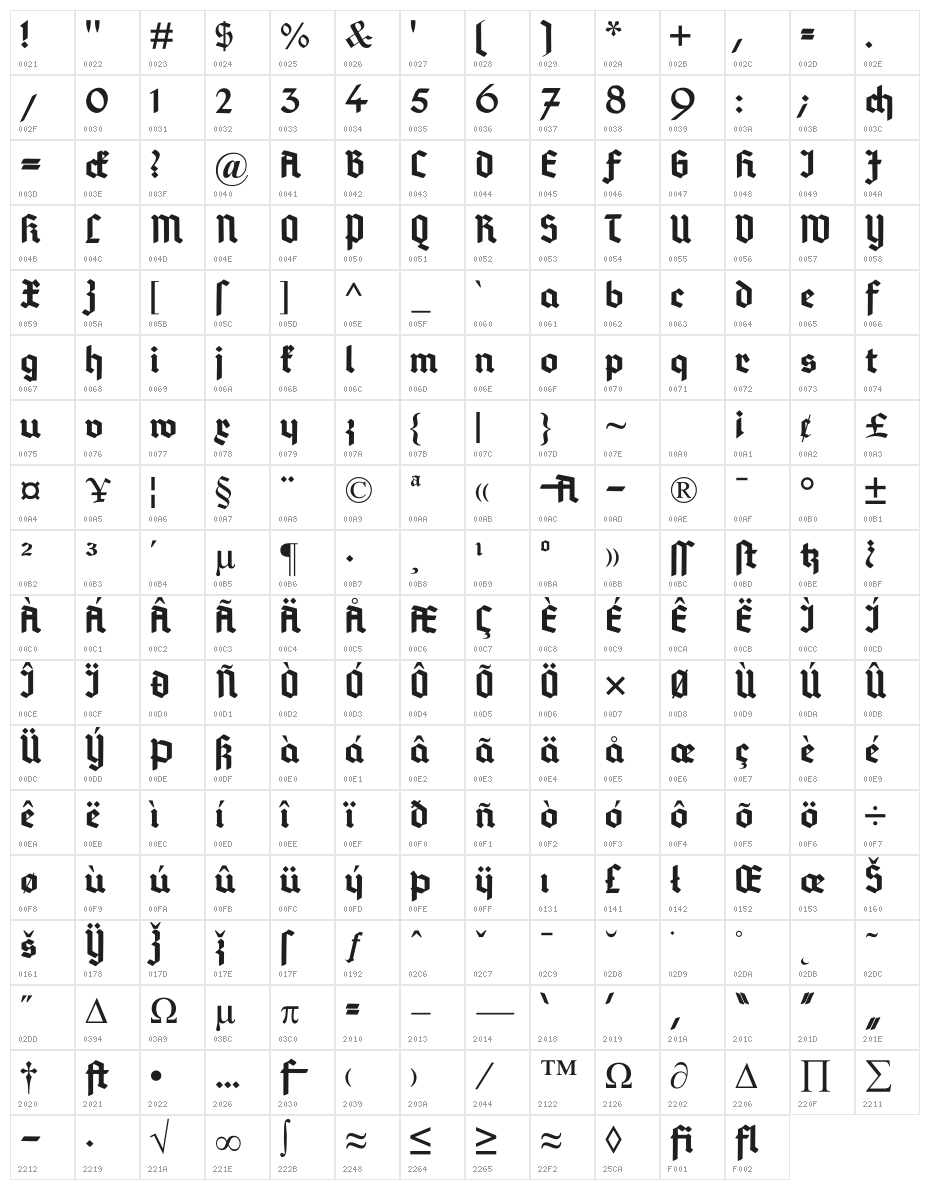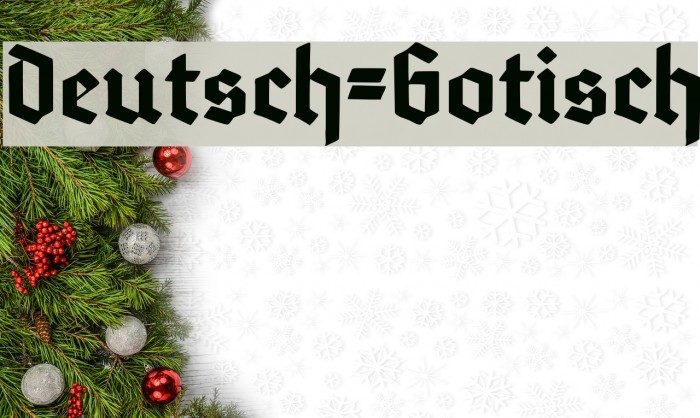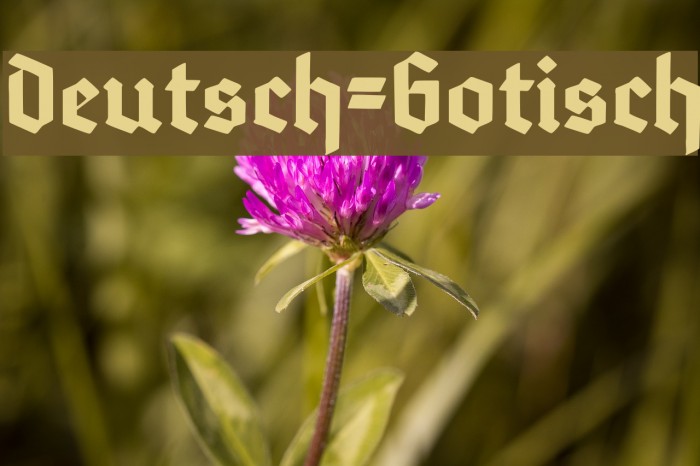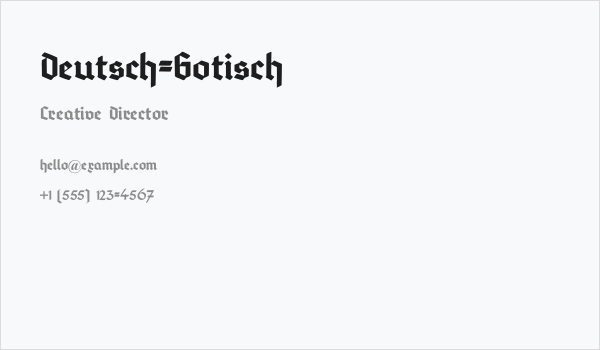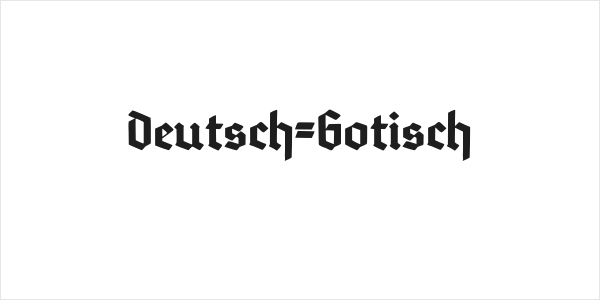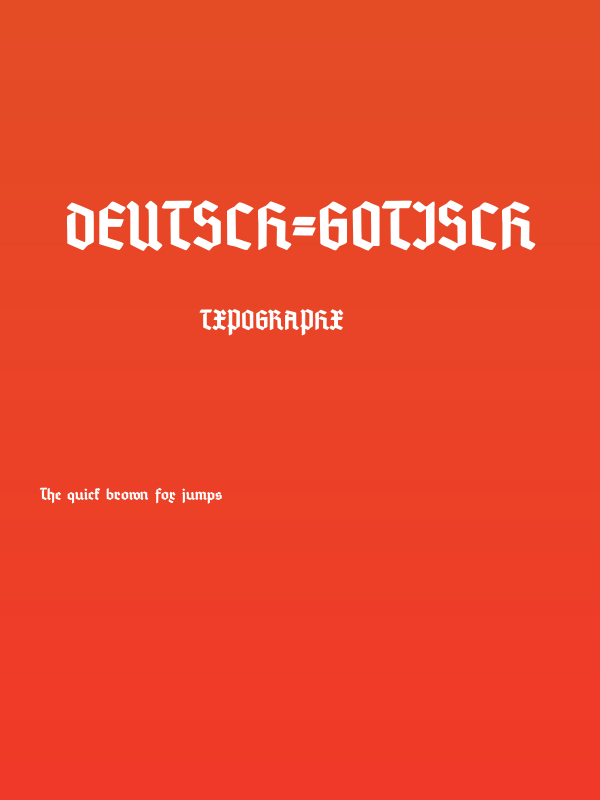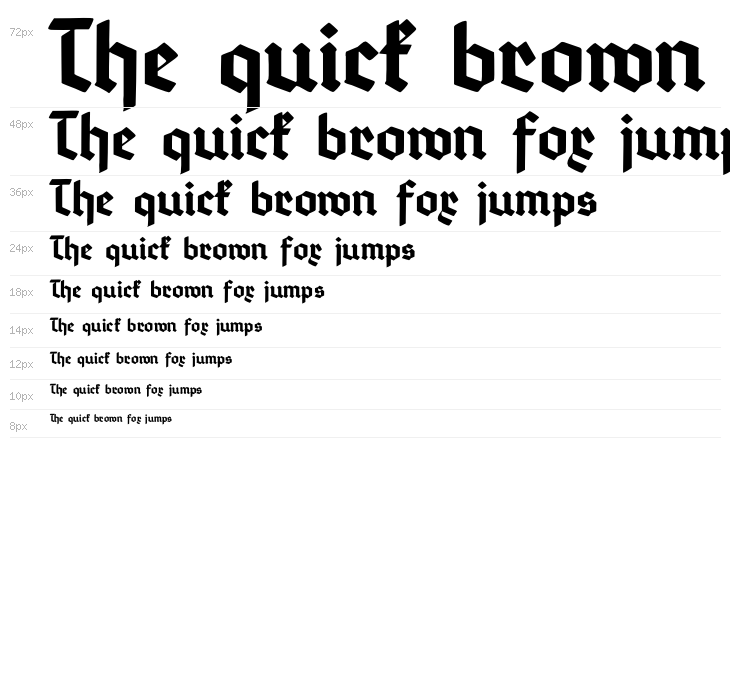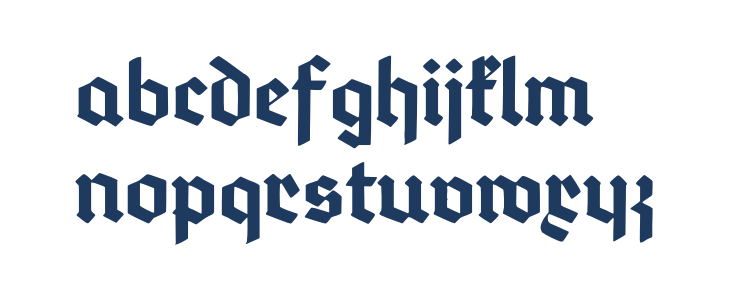
Deutsch-Gotisch Font
Deutsch-Gotisch Description
This font embodies the traditional and intricate style of Gothic script, characterized by its sharp, angular lines and elaborate detailing. The uppercase letters are bold and commanding, with a distinct medieval flair that is both decorative and authoritative. The lowercase letters maintain the same stylistic elements, offering a cohesive look across the alphabet. The numerals are equally stylized, ensuring consistency throughout. Special characters are crafted with the same attention to detail, making this font suitable for projects requiring a historical or classical touch. The overall design is reminiscent of old manuscripts and heraldic texts, making it ideal for creating a sense of antiquity and elegance.